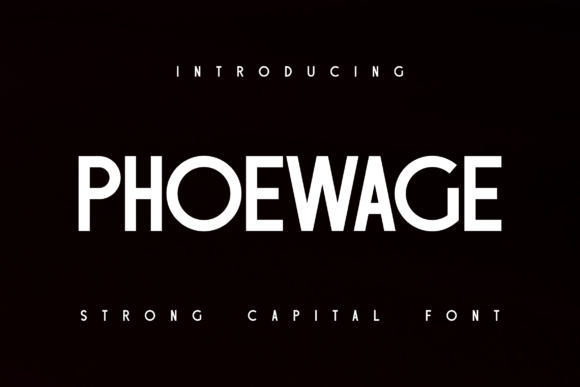
Immerse yourself in the captivating world of typography with Phoewage Font, an exquisite sans serif creation by the talented ponuppo. This font family exudes elegance and modernity, effortlessly enhancing your designs with a minimalist and clean aesthetic.
Unleash your creativity and let your designs shine with Phoewage Font. Its versatility knows no bounds, making it the perfect companion for a wide range of projects. From the covers of captivating books to the pages of stylish magazines, from engaging social media posts to heartfelt invitations, Phoewage Font seamlessly adapts, adding a touch of sophistication to every endeavor.
Step into a realm where simplicity meets sophistication, where your designs captivate and inspire. Phoewage Font's clean lines and crisp edges create a visual harmony that draws the eye, inviting viewers to delve deeper into your creations. Let your words dance across the screen, carried by the grace and poise of Phoewage Font, leaving an unforgettable impression.
Embrace the beauty of minimalism with Phoewage Font, a font family that speaks to the modern, design-savvy audience. Its understated elegance adds a touch of understated luxury to your projects, elevating them beyond the ordinary. Experience the transformative power of typography as Phoewage Font elevates your designs to new heights of visual appeal.
With Phoewage Font, the possibilities are endless. Its versatility shines through whether you're crafting elegant brochures, designing eye-catching posters, or creating social media graphics that demand attention. Unleash your imagination and let Phoewage Font guide you on a journey of creativity, where every design tells a story and leaves a lasting impact.